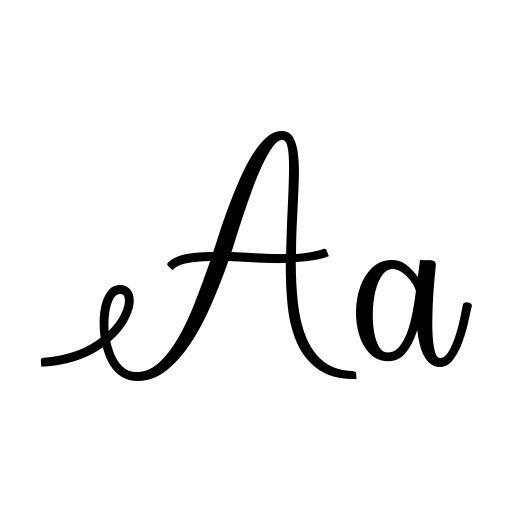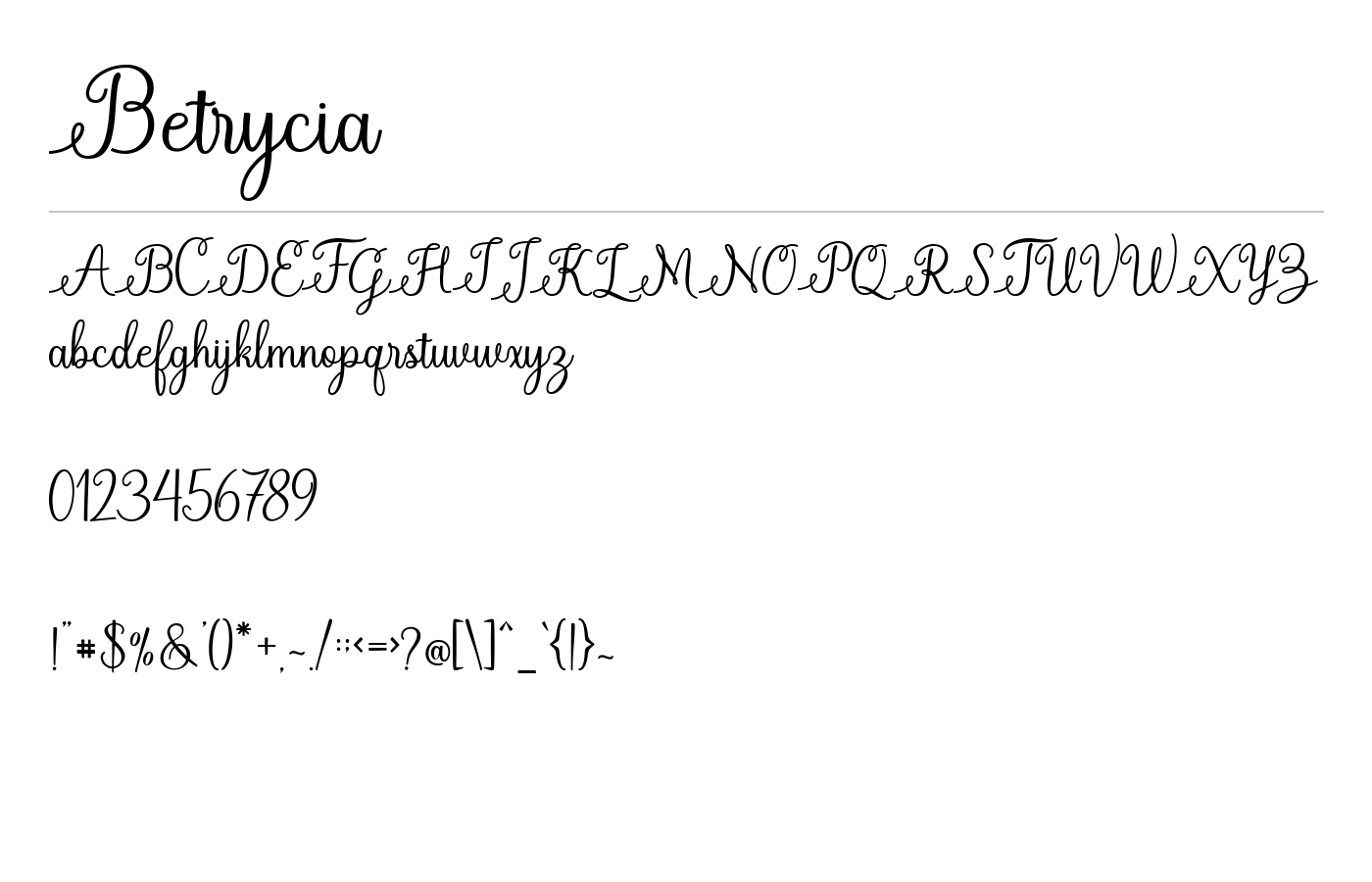
Betrycia is a delicate, elegant script font characterized by its slender strokes and graceful, flowing letterforms with a consistent thin weight throughout. Its tall x-height and intricate loops give it a refined, vintage feel perfect for stylish branding, invitations, and feminine design projects. This font works beautifully where a touch of sophistication and charm is desired, especially in logos, packaging, and headlines that need an artistic, handcrafted touch.
Betrycia Font